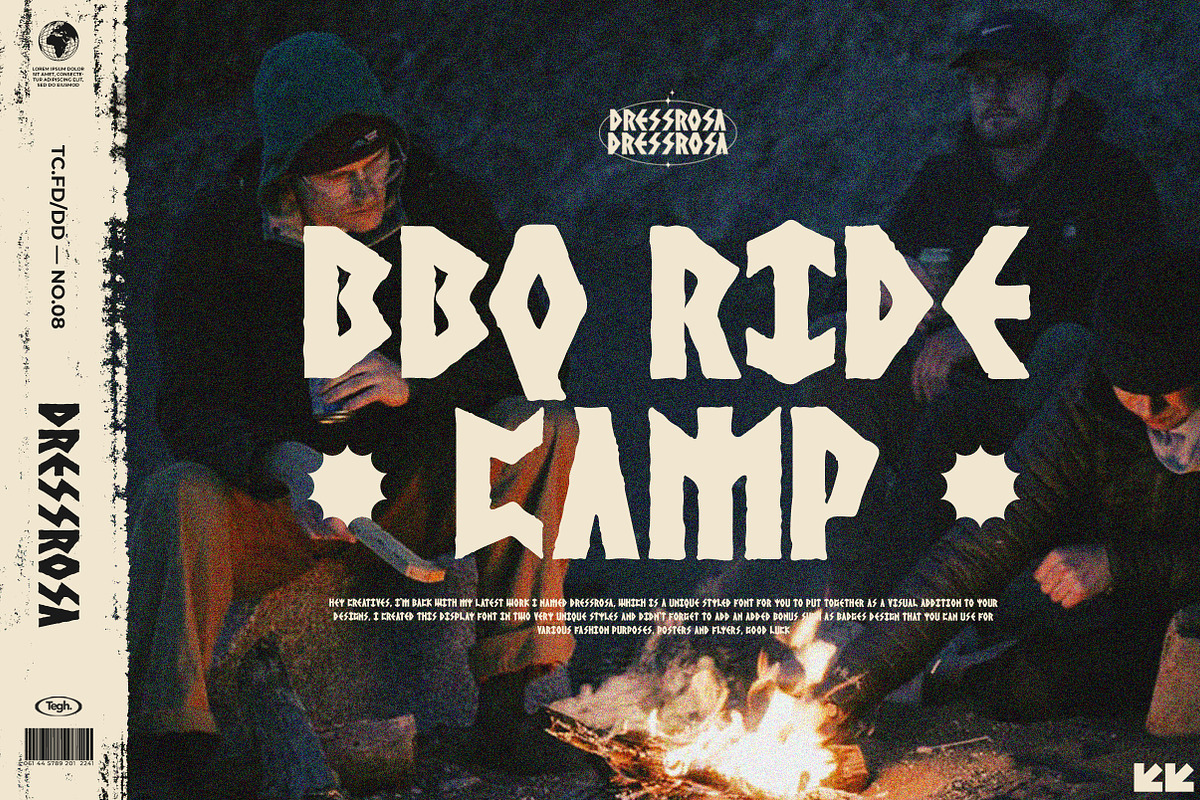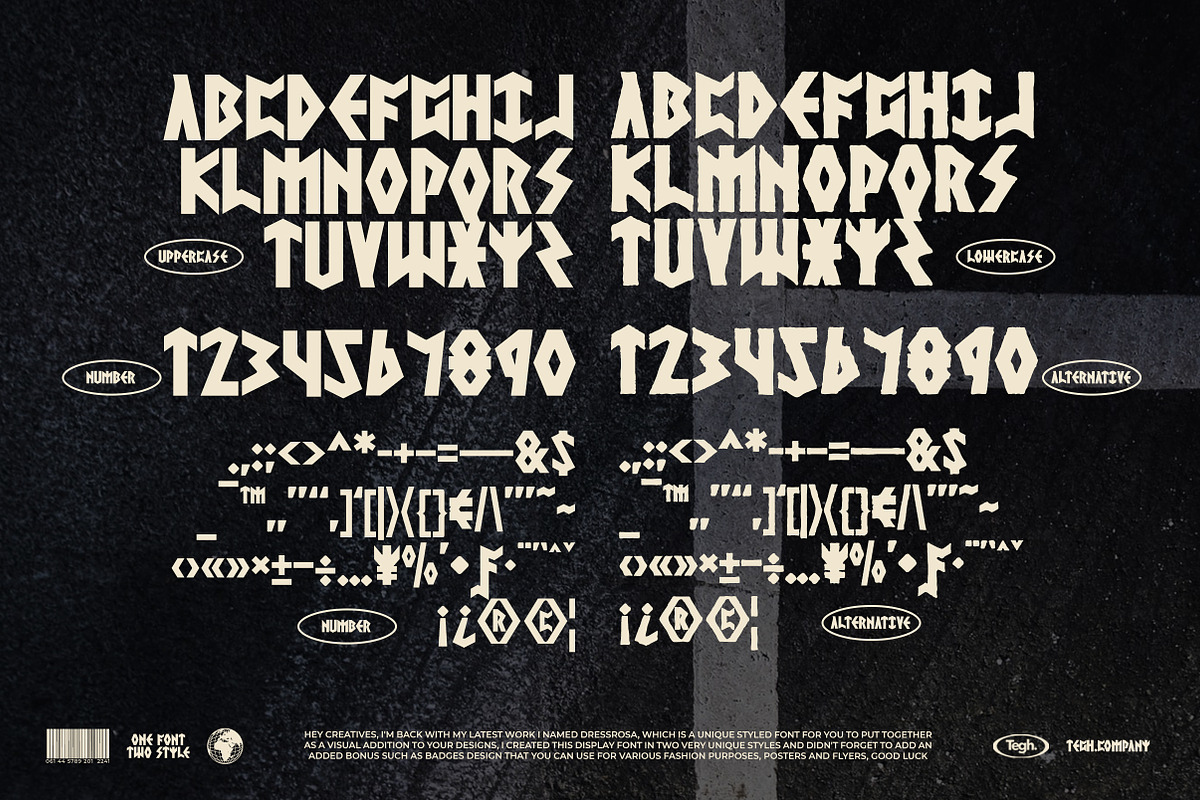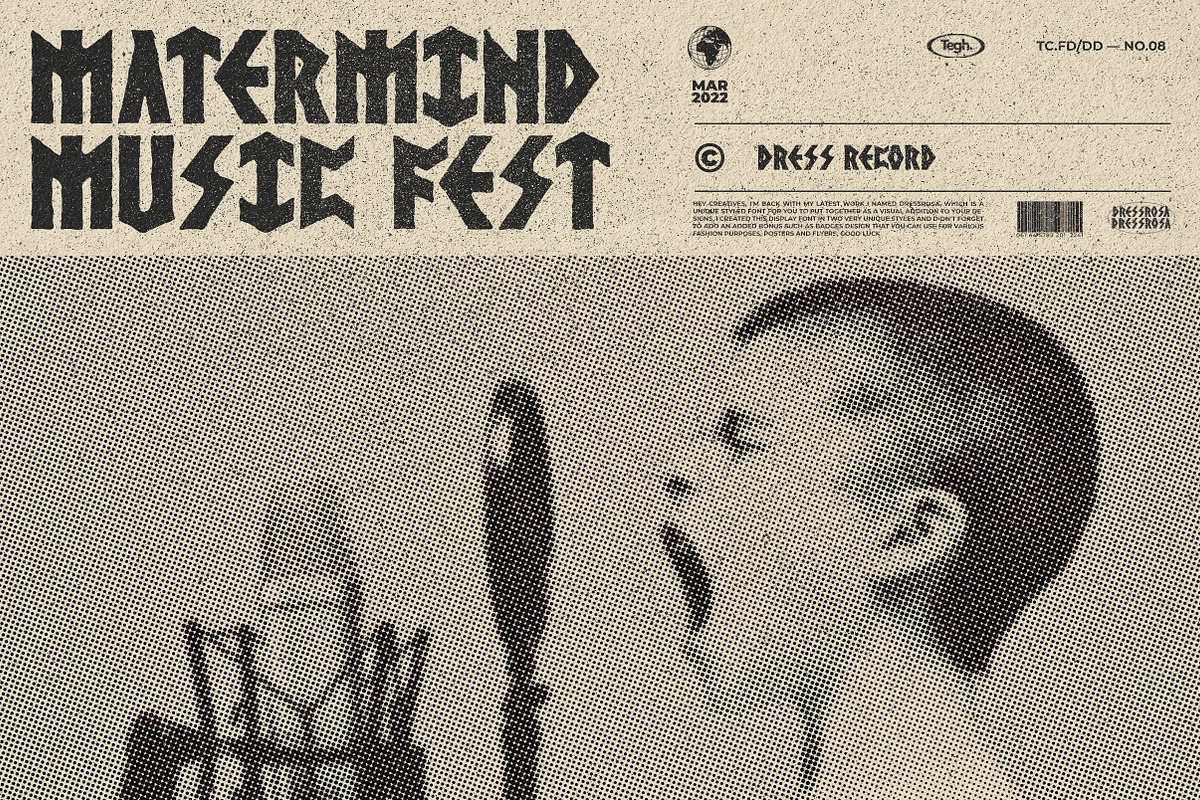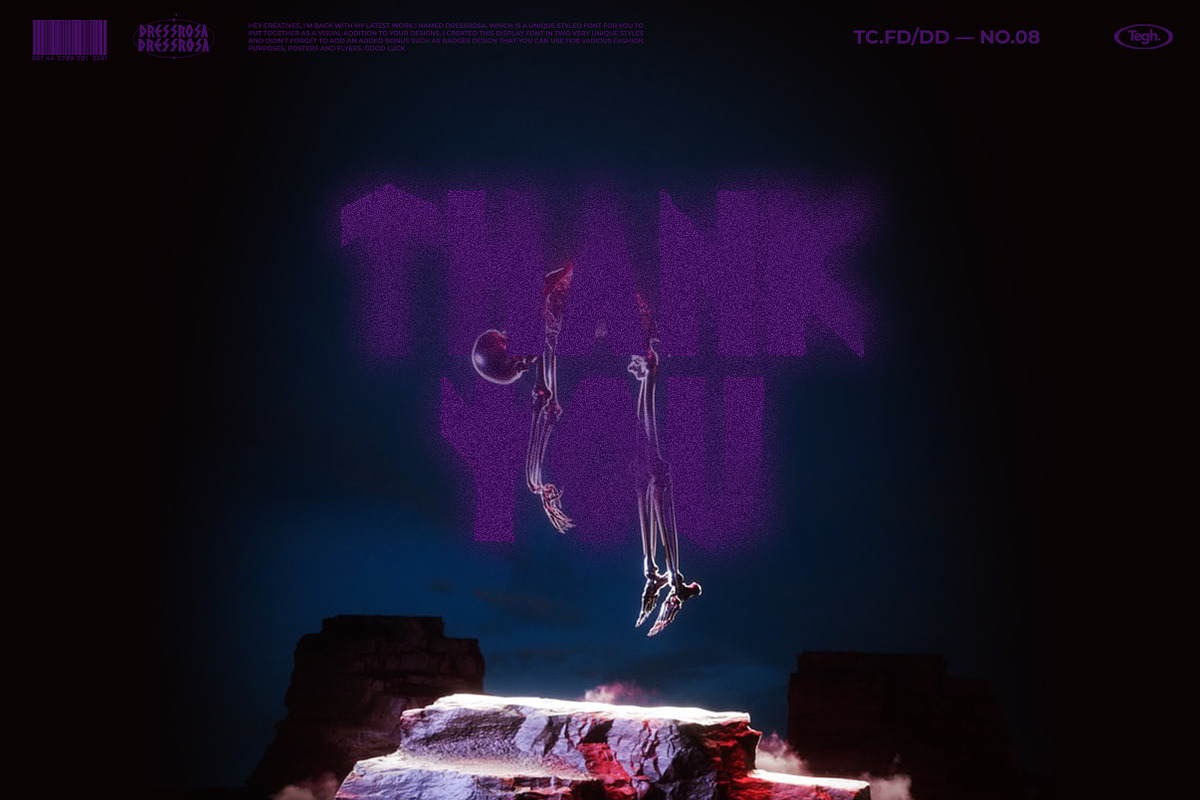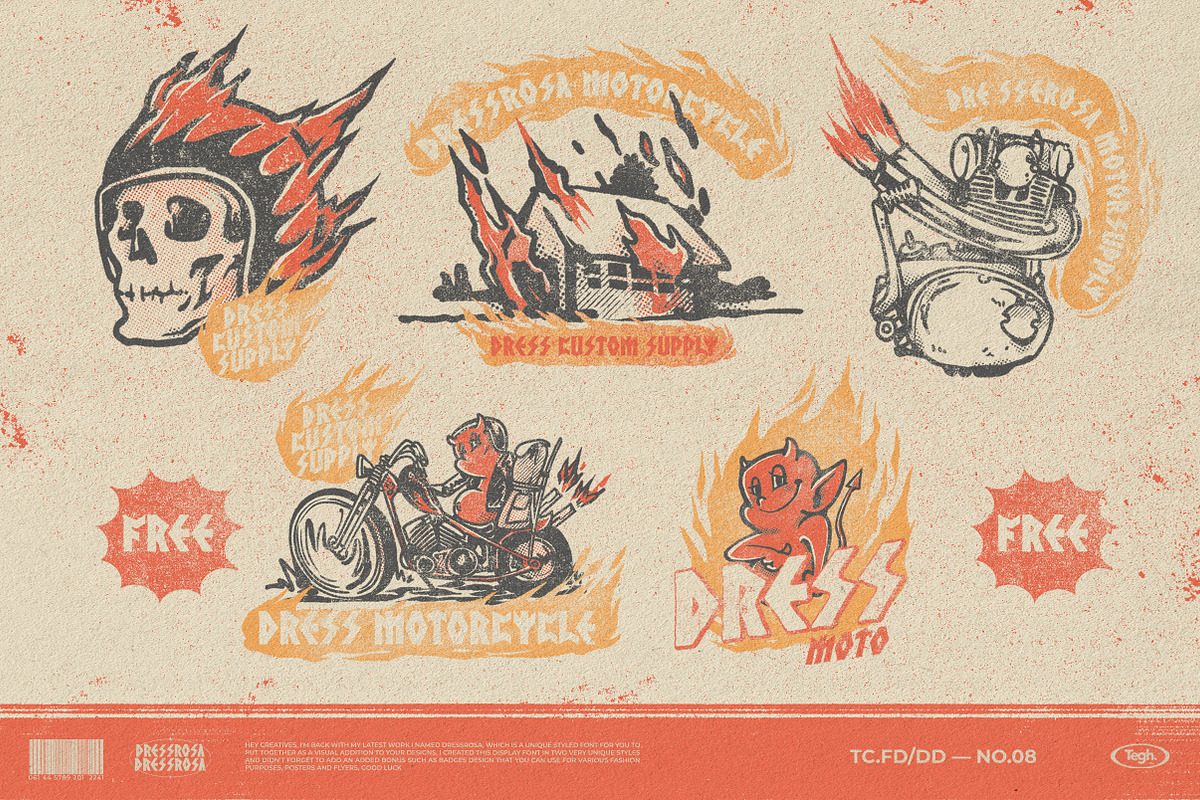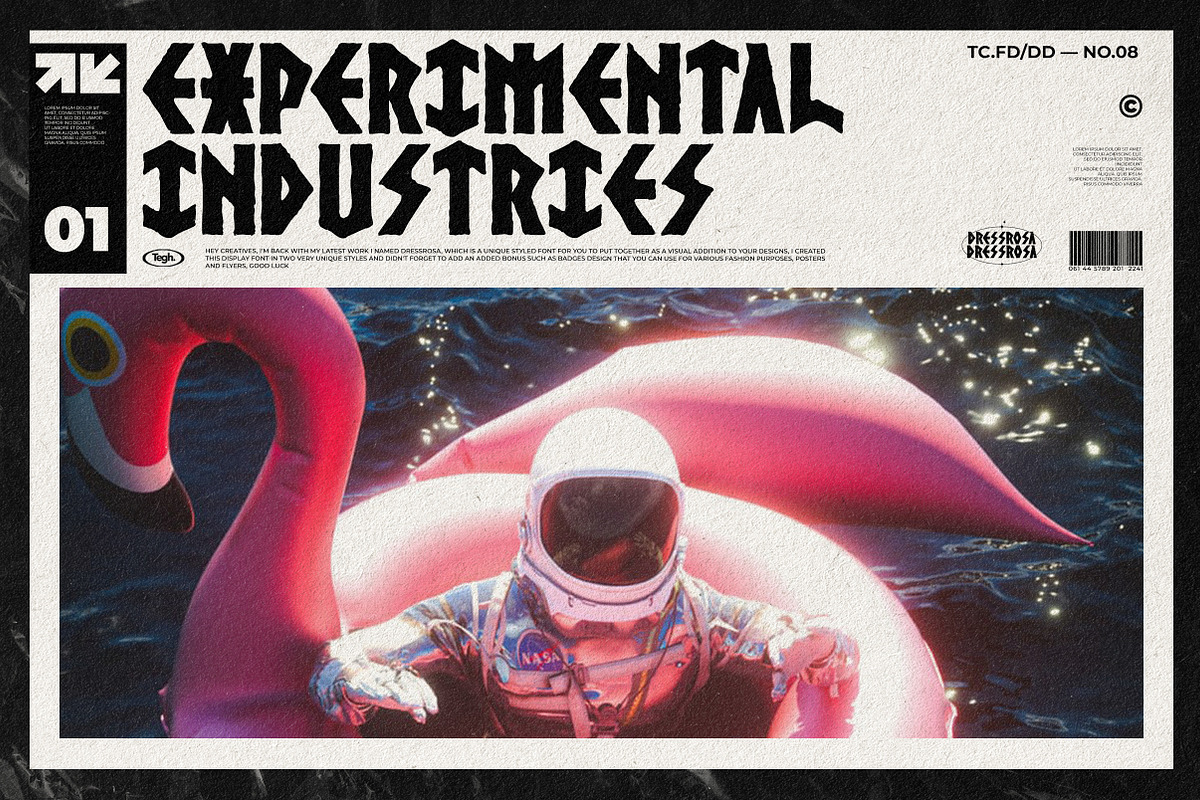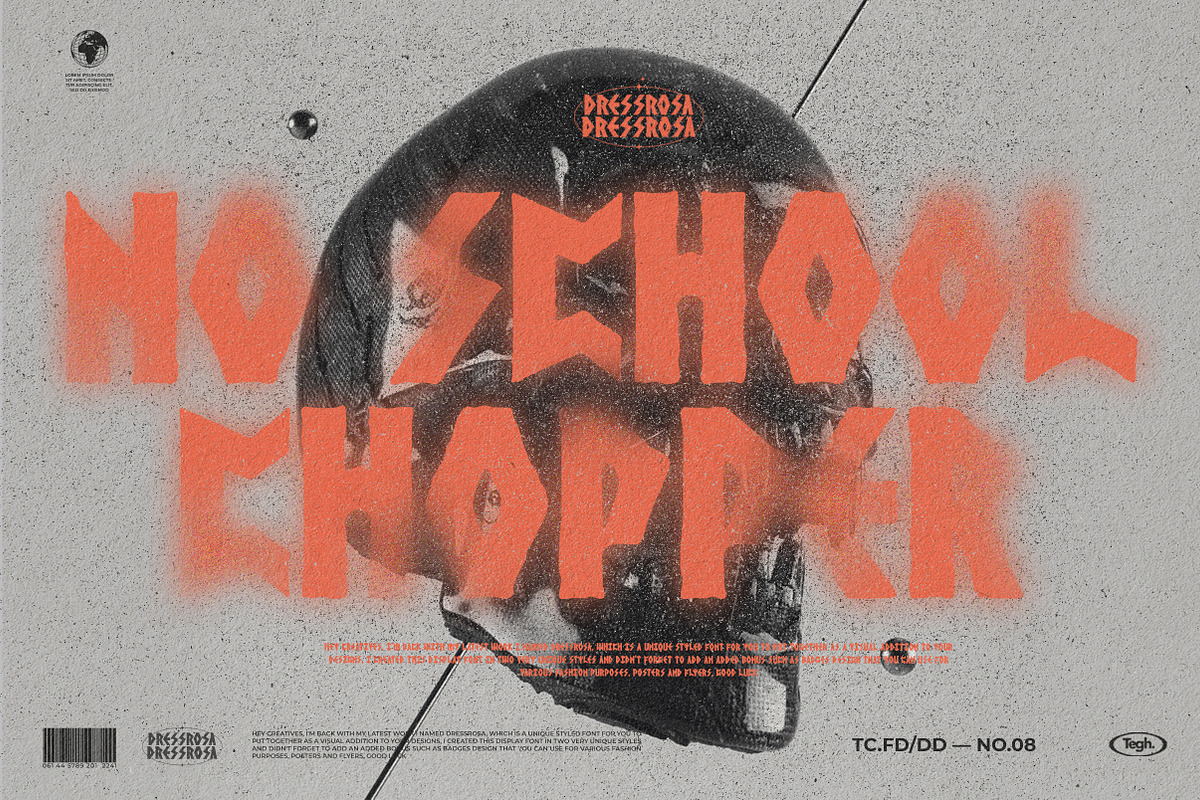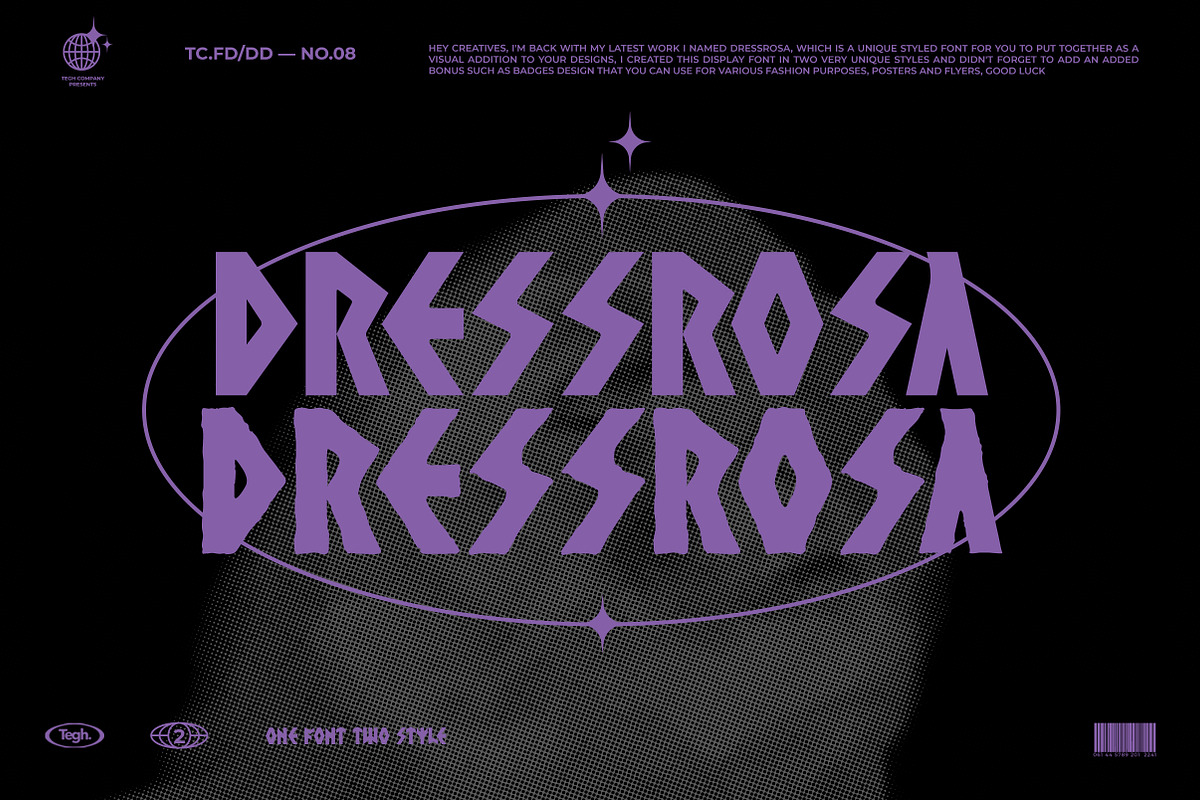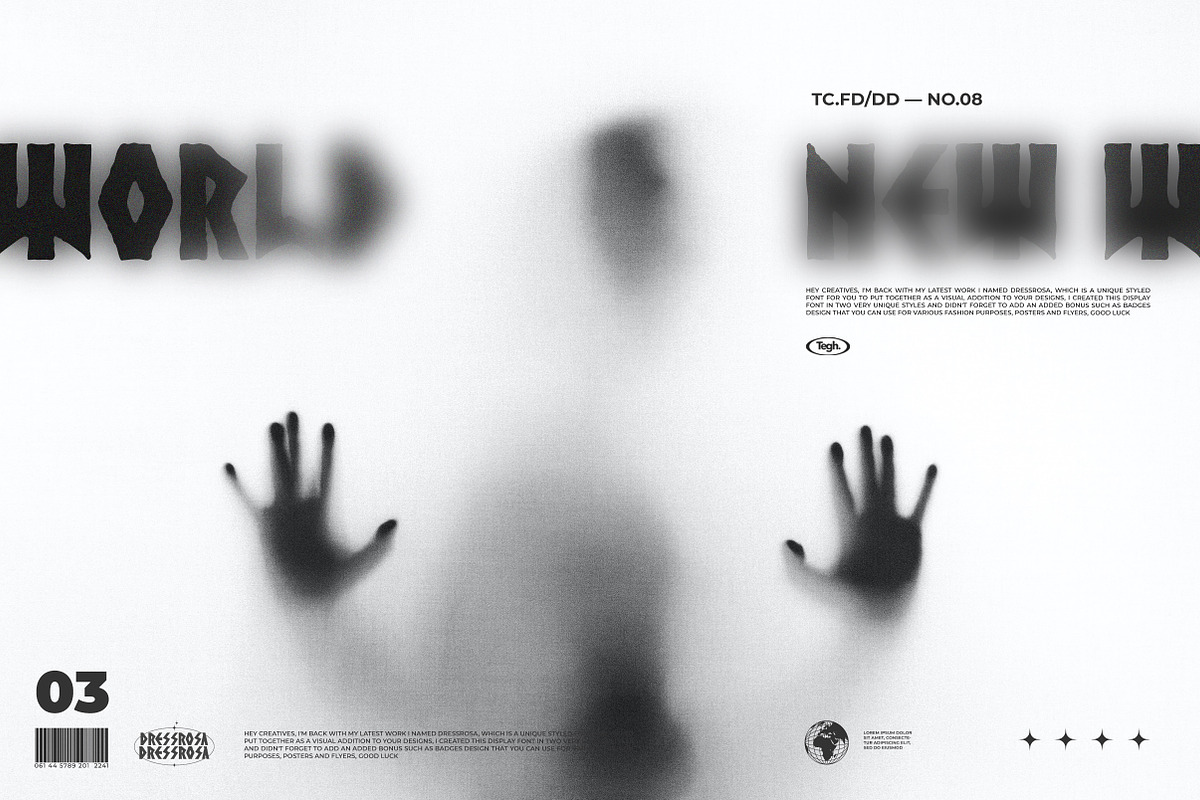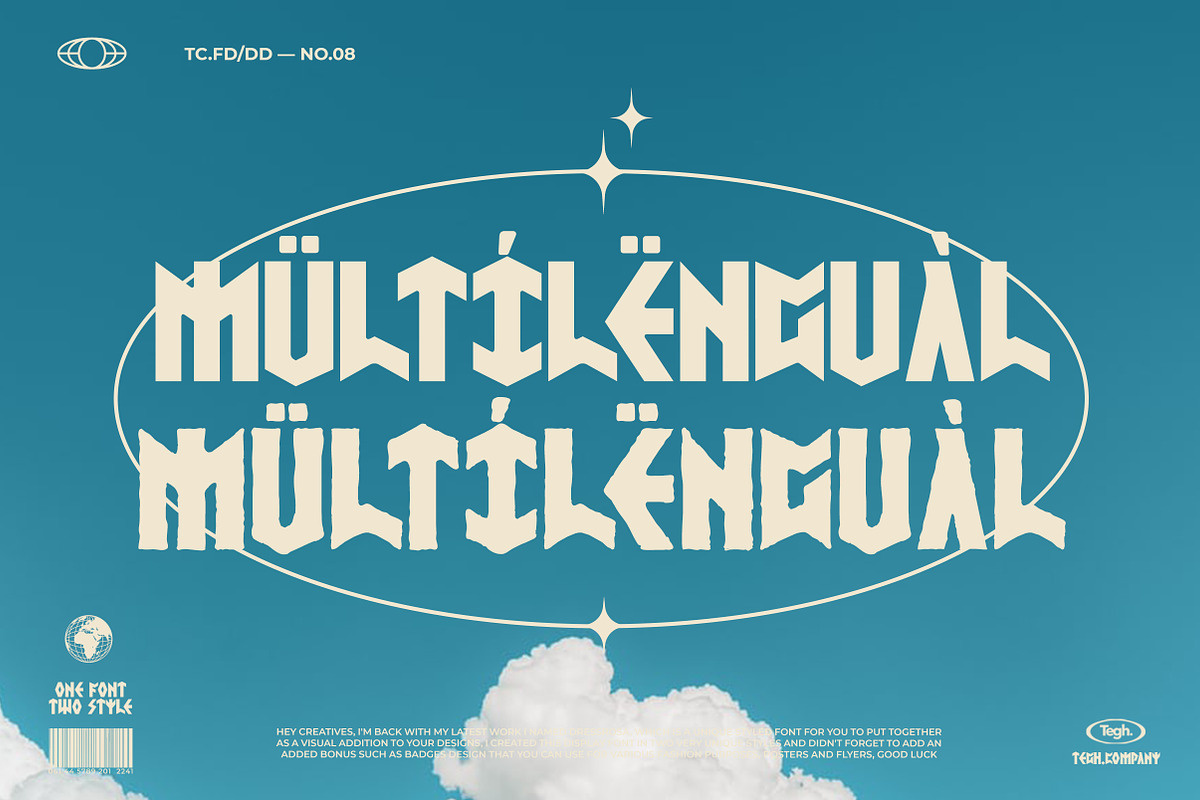
Dressrosa display Font + badge
Hi creatives, I'm back with my latest work I named dressrosa, which is a unique styled font for you to put together as a visual addition to your designs, I created this display font in two very unique styles and didn't forget to add an added bonus such as badges design that you can use for various fashion purposes, posters and flyers, good luck